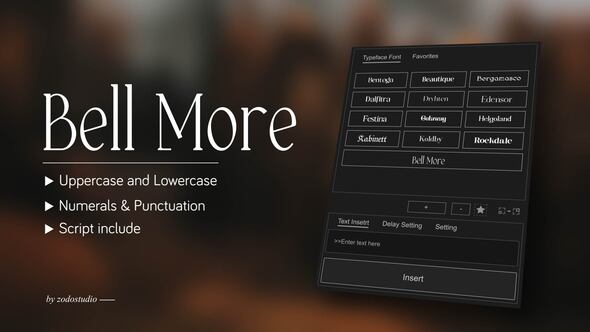
Looking to enhance your typography animations with a modern, eye-catching typeface? Discover the Free Videohive 58913722 Animated Typeface - Bell More, now available on GFXInspire. This expertly designed animated typeface offers a stylish and dynamic solution for video editors, content creators, YouTubers, and motion designers who want to bring their words to life.
✨ Key Features of Bell More – Animated Typeface​
FeatureDetails
💡 Elegant Typography DesignBell More offers a modern serif look with animated elegance
🎞️ Fully Animated TypefaceLetters animate smoothly and consistently for a premium feel
🔄 CustomizableChange timing, color, scale, and position with ease
🎯 Optimized WorkflowBoosts your animation speed with pre-designed elements
The Bell More Typeface is not your average typeface—its dynamic motion and design style make it ideal for 2024’s content trends.
📌 Use Cases for Bell More Animated Typeface​
Want to know how this typeface can level up your video content? Here are a few ways users are applying it:
• 📽️ Cinematic Intros & Title Sequences
Add character and movement to opening credits or short films.
• 📺 YouTube Videos & Channel Branding
Create stylish lower thirds, titles, and text reveals.
• 🧑‍🏫 Educational Tutorials
Use animated letters to visually reinforce learning material.
• 🛍️ Product Explainers or Brand Presentations
Make product features pop with fluid, animated type.
• 💡 Social Media Content & Reels
Increase engagement with motion-driven typography on platforms like Instagram, TikTok, and Facebook.